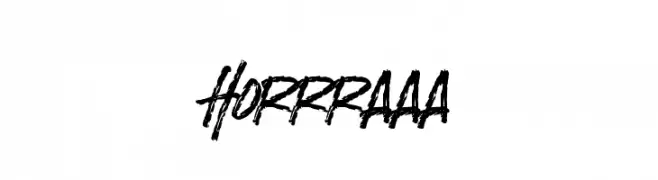
A bold, futuristic outline font with an italic slant and geometric shapes.
A spooky, dripping font ideal for horror themes.
A bold, brush-style font with dynamic and expressive strokes.
A lively, flowing script font with elegant, connected strokes.
Bold, angular font with a dynamic and modern style.
An elegant, cursive font with a signature-like style, perfect for sophisticated designs.
A bold, modern font with geometric shapes and uniform stroke widths.
A high-contrast serif font with elegant, sharp serifs and a modern flair.